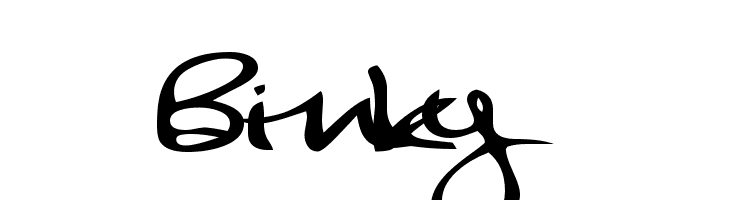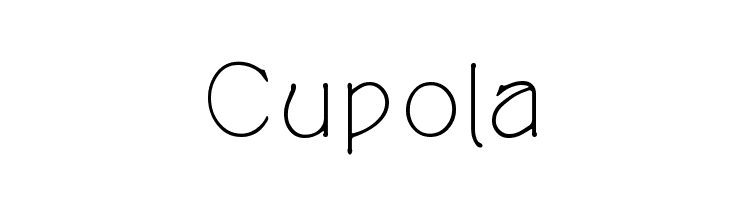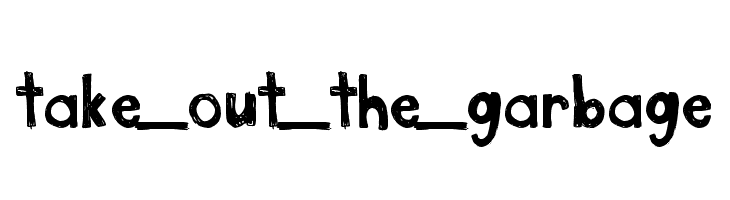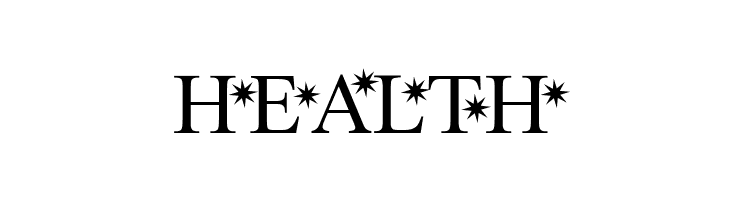
A bold, flowing script font with a dynamic, handwritten style.
A bold, brush-style font with dynamic and playful strokes.
A dynamic, brush-style font with bold, fluid strokes and a hand-drawn appearance.
A bold, brush-style script with a textured, distressed appearance.
A vintage-inspired font with elegant, narrow characters and unique flourishes.
A playful, handwritten font with bold, rounded characters and a casual style.
A thin, semi-condensed serif font with a refined and minimal look.
A high-contrast, elegant font with dramatic strokes and sophisticated curves.
A bold, geometric font with high contrast and artistic flair.
A playful, hand-drawn sketch-style font with a textured, artistic look.
A cursive, handwritten-style font with elegant, flowing strokes.
A bold, cursive script font with interconnected characters and a dynamic flow.
A bold, sci-fi themed font with a distressed, rugged appearance.
A sleek, thin, italicized font with a modern and elegant design.
A bold, hand-drawn font with an artistic and expressive style.
A bold, playful font with rounded strokes and a hand-drawn feel.
A playful, hand-drawn font with irregular, whimsical letterforms.
A playful brush-style font with bold, dynamic strokes and a hand-painted appearance.
A bold, pixelated typeface with a retro digital aesthetic.
A dynamic italic font with sharp, angular lines and a modern aesthetic.
A modern, thin, geometric font with clean lines and balanced spacing.
A playful, informal handwritten font with rounded, consistent strokes.
A bold, rounded font with smooth curves and consistent spacing.
A bold, graffiti-inspired font with dynamic, jagged lines and a rebellious urban style.
A bold, italicized stencil-style font with a rugged, industrial look.
A pixelated, retro digital font with a blocky, grid-like design.
A sleek, minimalist font with thin, uniform strokes and balanced spacing.
A bold, hand-drawn font with expressive, dynamic strokes.
A graceful script font with flowing, handwritten strokes and elegant curves.
A bold, 3D geometric font with a retro, comic book style.
A modern, geometric sans-serif font with clean lines and a friendly appearance.
A whimsical, heart-themed decorative font perfect for romantic or playful designs.